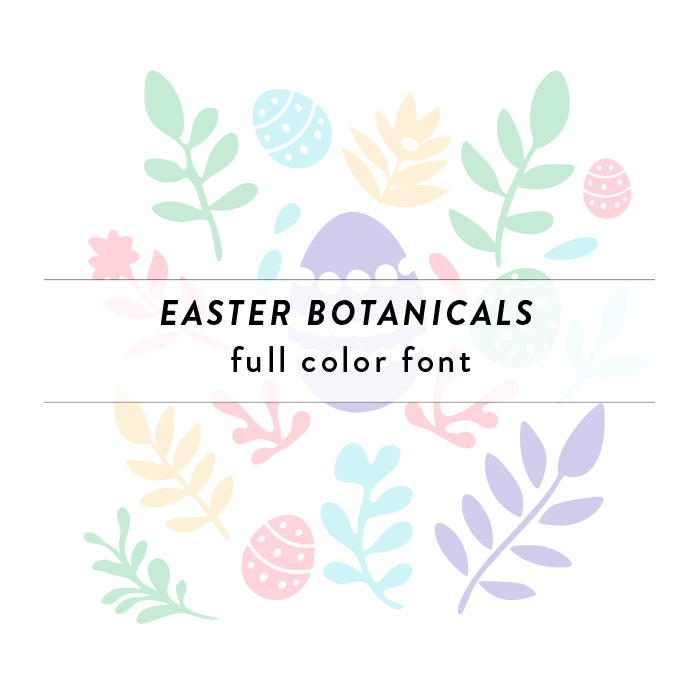
Color fonts will appear black if not used in a compatible program. This font type should be used with Silhouette Studio to appear in color. Spring into craft action with these Easter botanicals designed to coordinate for the ultimate mix and match experience.